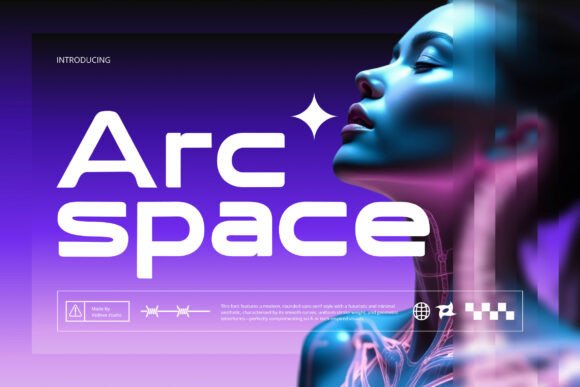
Blast Off into Futuristic Design with Arc Space Font
I’ll never forget the late nights spent working on a sci-fi themed project, searching for the perfect font to bring my vision to life. My client wanted a title that screamed “space-age technology” and “high-tech sophistication,” but I was stuck in a design rut. That’s when I stumbled upon Arc Space, a modern, rounded sans-serif typeface that would change the game. In this article, I’ll share my experience with Arc Space, its features, and how to make the most of this fantastic font.
First Impressions: What I Love About Arc Space
Arc Space has been a game-changer for my design projects, and here’s why:
• ✨ **Smooth, aerodynamic curves**: The rounded edges and fluid lines of Arc Space give it a sleek, futuristic feel that’s perfect for sci-fi and tech-related projects.
• ✅ **Uniform stroke weight**: The consistent line width creates a clean and precise look that’s ideal for titles, headings, and body text.
• 🔍 **Geometric letterforms**: The font’s geometric shapes and minimalist approach evoke the precision and sophistication of space-age technology.
• 💻 **High-tech sophistication**: Arc Space has a distinctly modern feel that’s perfect for luxury automotive marketing, tech startup branding, and cyber-culture social media headers.
While Arc Space has won me over, there are a few things to keep in mind:
• 🤔 **Limited serif options**: As a sans-serif font, Arc Space might not be the best choice for projects requiring traditional serif fonts.
• ⚠️ **Glyph compatibility**: Some glyphs might not work seamlessly with certain design software or platforms, so be sure to test compatibility before committing to a project.
The Story Behind Arc Space
Arc Space was designed with the goal of creating a font that embodies the sleek, futuristic aesthetic of space-age technology. Inspired by the precision and sophistication of spacecraft design, the font’s creator aimed to craft a typeface that would bring a sense of high-tech sophistication to any design project.
What is Arc Space best used for? Arc Space is ideal for sci-fi cinematic titles, independent tech startup branding, luxury automotive marketing, and high-impact “cyber-culture” social media headers.
Is Arc Space suitable for body text? While Arc Space is primarily designed for titles and headings, its clean lines and uniform stroke weight make it suitable for body text in certain contexts, such as tech or sci-fi themed projects.